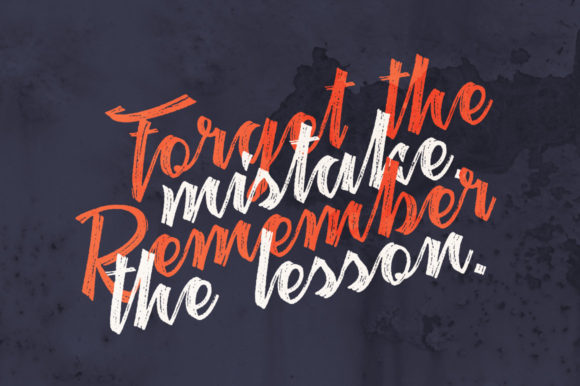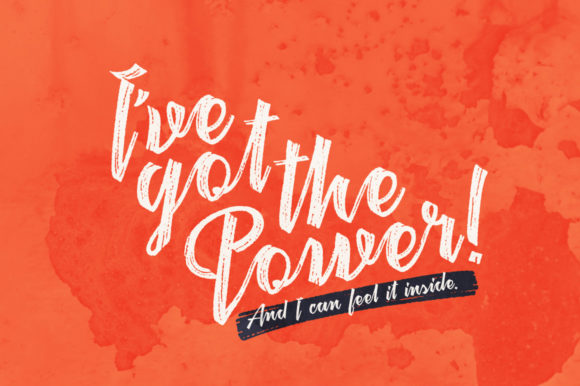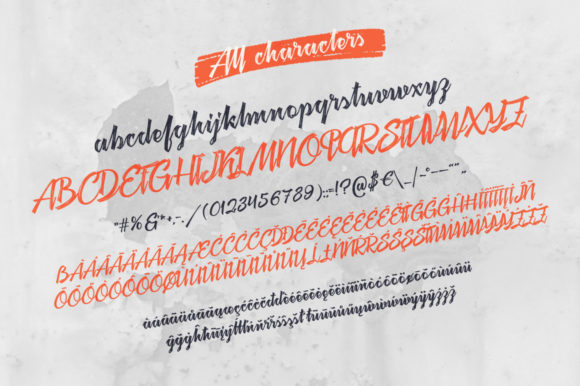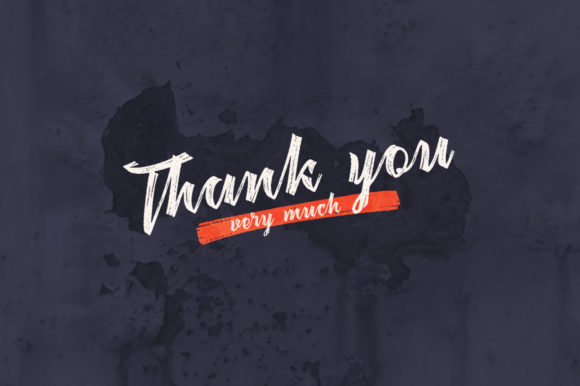
Introduction to Hardwatt Font Font
Fonts play a crucial role in design, and the Hardwatt Font font is a typeface that brings both character and versatility to any project. Whether you’re working on a branding project, a website, or a print design, the Hardwatt Font font offers a unique style that can elevate your work.
Hardwatt is a trendy and beautiful handwritten font.
Whether youβre using it for crafting, digital designing, presentations or greeting cards making, itβs perfect Fall in love with its incredibly versatile style and use it to create spectacular designs.
Key Features of Hardwatt Font Font
Why Choose Hardwatt Font Font?
The Hardwatt Font font is more than just a typeface β it’s a design tool that helps you communicate your message with style and clarity. Its unique character set and versatile design make it suitable for a wide range of applications, from elegant invitations to bold headlines.
With its carefully crafted letterforms and balanced proportions, the Hardwatt Font font ensures readability and visual appeal across all mediums.
What makes Hardwatt Font font special?
The Hardwatt Font font stands out with its unique design, exceptional readability, and versatility across various design applications.